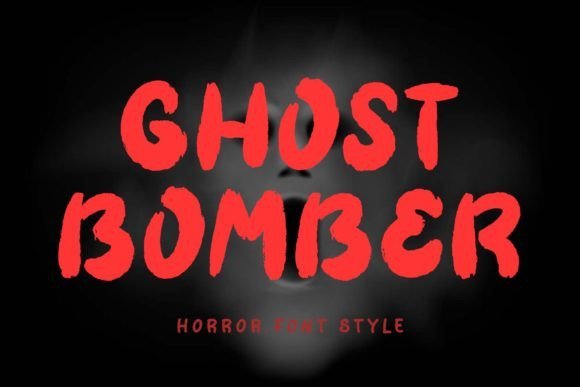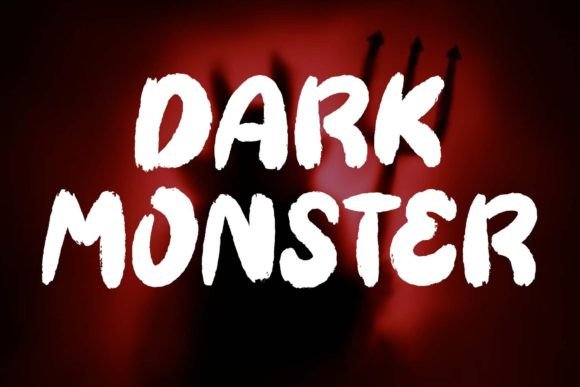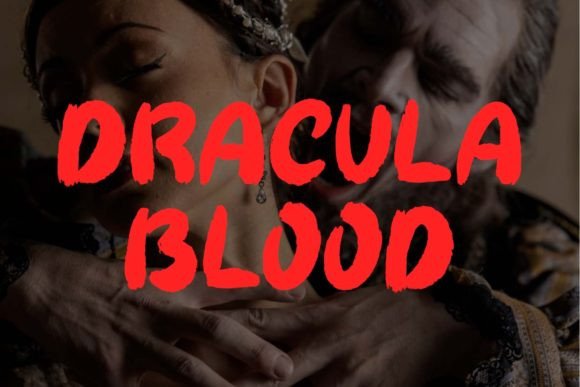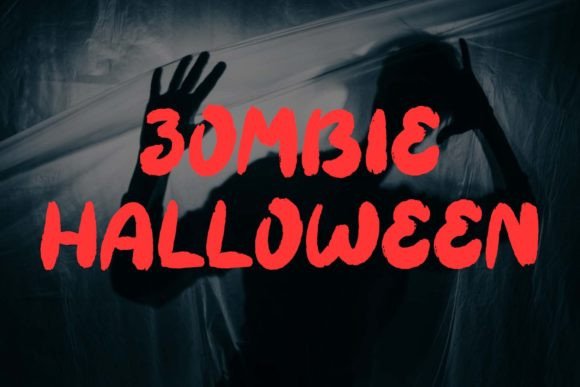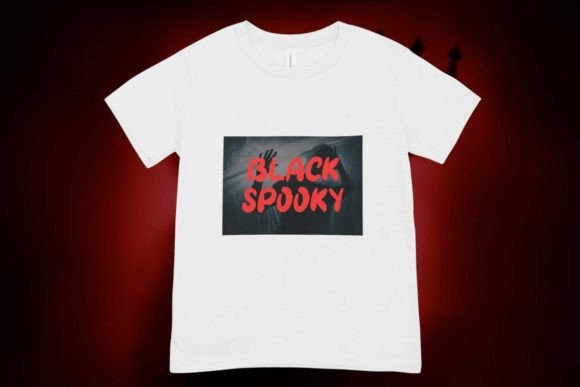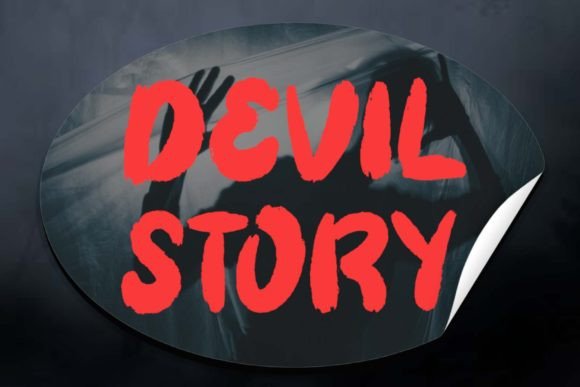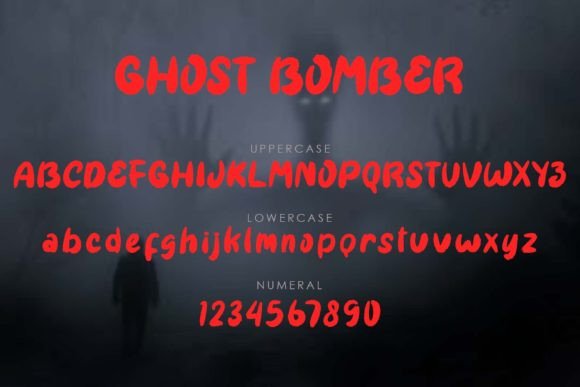
Unleashing the Frightful Typographer Within
As the clock strikes midnight, and the moon casts an eerie glow, designers often find themselves in a creative frenzy. The air is thick with anticipation, and the task at hand is to craft a design that sends shivers down the spines of its viewers. It’s during these moments of creative darkness that a perfect font can be the difference between a mere mortal design and a haunting masterpiece.
Enter the Ghost Bomber Font, a chilling horror font that’s tailor-made for designers who dare to push the boundaries of fear and creativity. With its extensive character set, multilingual support, and haunting aesthetic, this font is the ultimate tool for conjuring up spine-tingling titles, logos, and graphics that leave a lasting impact on audiences.
Key Features of “Ghost Bomber Font”
- Unique Characteristics: The “Ghost Bomber Font” features a unique blend of modern and distressed elements, creating a striking visual effect that adds an edgy touch to any design.
- Kerning and Ligatures: The font includes advanced kerning and ligature features, ensuring seamless integration of letters and characters, and creating a polished and professional look.
Ghost Bomber Font Review
Ghost Bomber Font is an interesting typeface that caught my attention. Here are some things that work well:
- ✨ Unique and bold design that makes it stand out. The font has a distinct personality that can be used to grab attention.
- ✨ The font is highly customizable, allowing users to adjust the style to fit their specific needs.
- ✨ It’s a great option for headlines and titles, as it adds a touch of sophistication and elegance.
However, there are some limitations:
- ⚠️ The font can be difficult to read in smaller sizes, especially in body text. This may limit its use in certain contexts.
- ⚠️ The font’s bold style may not be suitable for all types of content, particularly in situations where a more subtle approach is needed.
Overall, I think Ghost Bomber Font is a great addition to any designer’s toolkit, but it’s essential to use it thoughtfully and consider the context in which it will be used. With some careful consideration, this font can add a unique touch to your designs and help you stand out from the crowd.
The Ghost Bomber Font is ideal for:
- Designing spooky or horror-themed graphics.
- Creating unique and eye-catching titles or headings.
- Adding a touch of retro or vintage flair to your designs.